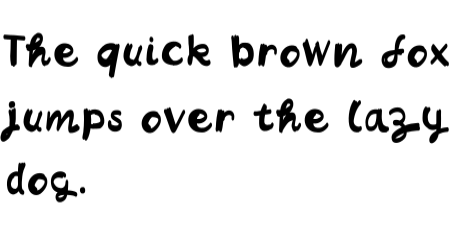
No-Pattern Font: The Simple Handwritten Style for Clear Readability
The world of typography is vast and diverse, with numerous font styles to choose from, each with its unique characteristics and uses. Among these, the “No-pattern Font” stands out for its simplicity and clarity. This font is a type of handwritten style that has gained popularity for its straightforward and friendly feel. In this article, we will explore the features, benefits, and uses of the No-pattern Font, and why it has become a favorite among designers and readers alike.
What is No-Pattern Font?
The No-pattern Font is a simple handwritten style that is designed to be clear and easy to read. It is characterized by its unique feature of varied stroke weights throughout the characters. This variation in stroke weights gives the font a distinctive and friendly feel, making it perfect for use in a variety of applications, from digital media to print materials.
Key Features of No-Pattern Font
- Simple and Handwritten Style: The No-pattern Font has a simple and handwritten style that makes it easy to read and understand.
- Varied Stroke Weights: The characters in the No-pattern Font have varied stroke weights, which gives the font a unique and friendly feel.
- Clear Readability: The font is designed to be clear and easy to read, making it perfect for use in body text, headings, and titles.
- Versatile: The No-pattern Font is versatile and can be used in a variety of applications, from digital media to print materials.
Benefits of Using No-Pattern Font
The No-pattern Font offers several benefits, including:
- Improved Readability: The font’s clear and simple design makes it easy to read, even for readers with visual impairments.
- Enhanced Aesthetics: The varied stroke weights and handwritten style of the font give it a unique and visually appealing look.
- Flexibility: The No-pattern Font can be used in a variety of applications, from digital media to print materials.
- Friendliness: The font’s friendly feel makes it perfect for use in informal and conversational content.
Uses of No-Pattern Font
The No-pattern Font can be used in a variety of applications, including:
- Digital Media: The font can be used in digital media, such as websites, blogs, and social media platforms.
- Print Materials: The font can be used in print materials, such as books, magazines, and brochures.
- Headings and Titles: The font can be used for headings and titles, adding a touch of elegance and sophistication.
- Body Text: The font can be used for body text, providing clear and easy-to-read content.
Best Practices for Using No-Pattern Font
To get the most out of the No-pattern Font, follow these best practices:
- Use it for Body Text: Use the font for body text to take advantage of its clear readability.
- Pair it with Other Fonts: Pair the No-pattern Font with other fonts to create visual interest and contrast.
- Adjust Font Size: Adjust the font size to ensure that the text is clear and easy to read.
- Use it for Informal Content: Use the font for informal content, such as blog posts and social media updates.
The No-pattern Font is a simple handwritten style that offers clear readability and a friendly feel. Its unique features, such as varied stroke weights, make it perfect for use in a variety of applications. By following best practices and using the font in the right context, designers and readers can take advantage of its benefits and create visually appealing and easy-to-read content.
FAQs About No-Pattern Font
- What is the No-pattern Font?: The No-pattern Font is a simple handwritten style that is designed to be clear and easy to read.
- What are the key features of the No-pattern Font?: The key features of the No-pattern Font include its simple and handwritten style, varied stroke weights, clear readability, and versatility.
- What are the benefits of using the No-pattern Font?: The benefits of using the No-pattern Font include improved readability, enhanced aesthetics, flexibility, and friendliness.
- How can I use the No-pattern Font?: The No-pattern Font can be used in a variety of applications, including digital media, print materials, headings and titles, and body text.